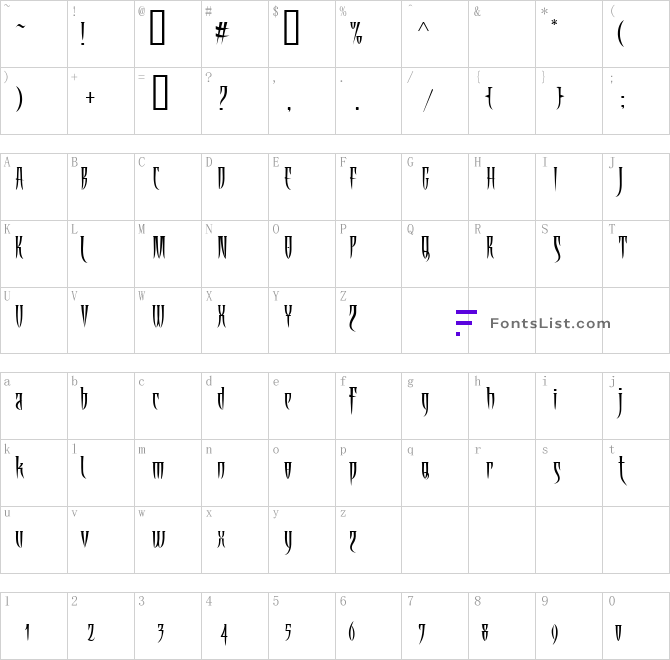
- Font Name:Ab Fangs
Ab-Fangs.ttf is a very beautiful artistic font, Ab-Fangs.ttf is widely used in the design and printing of various books and pictures,Ab-Fangs.ttf has a strong visual impact,Ab-Fangs.ttf is a commonly used font in newspapers, magazines and books, and is used in posters, e-commerce Poster design, store design, logo design, font design and other fields.Ab-Fangs.